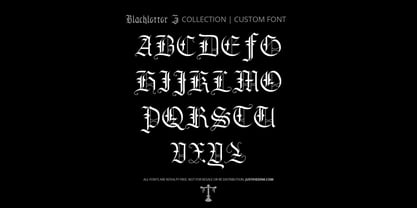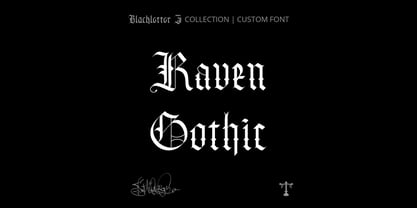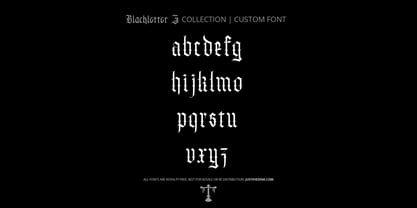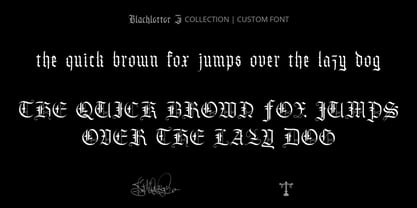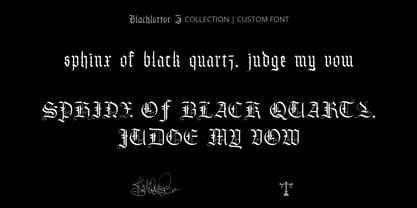
Raven Gothic
by Justified Ink Scriptorium
The Raven Gothic Font Family was designed by and published by Justified Ink Scriptorium. Raven Gothic contains 1 styles. More about this family
Raven Gothic (1 Style) — Custom Typeface Where Shadows Learn to Speak Raven Gothic draws from the ancient discipline of Textura, refining its angular rhythm and solemn geometry into something more personal, more haunted, more alive. Its forms echo the architecture of cathedral script—but carried now by a raven’s wing, dark-feathered and knowing. This is a typeface for inscriptions, invocations, and works that require presence. It feels carved rather than written, deliberate rather than decorative. Each letter lands like a black feather on stone—elegant, austere, and touched with mystery. Ideal for gothic branding, tattoo lettering, ceremonial design, and any project that calls for beauty shaped by shadow.